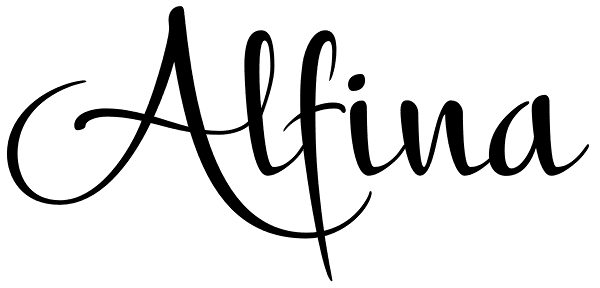
Alfina
Alfina is a chancery typeface that shows a modern temperament, but is inspired by the eponymous town of Torre Alfina, one of the most beautiful medieval villages of Italy, situated on the edge of the plateau Alfina, a few miles from of Orvieto. The...